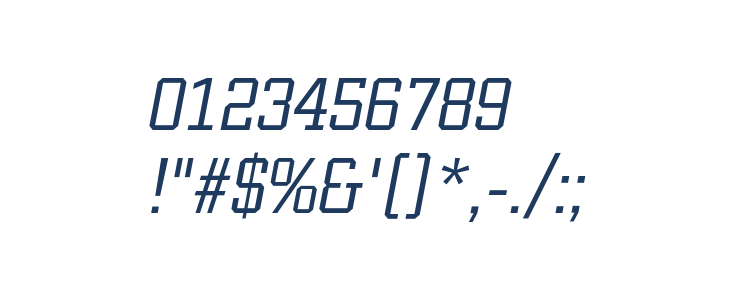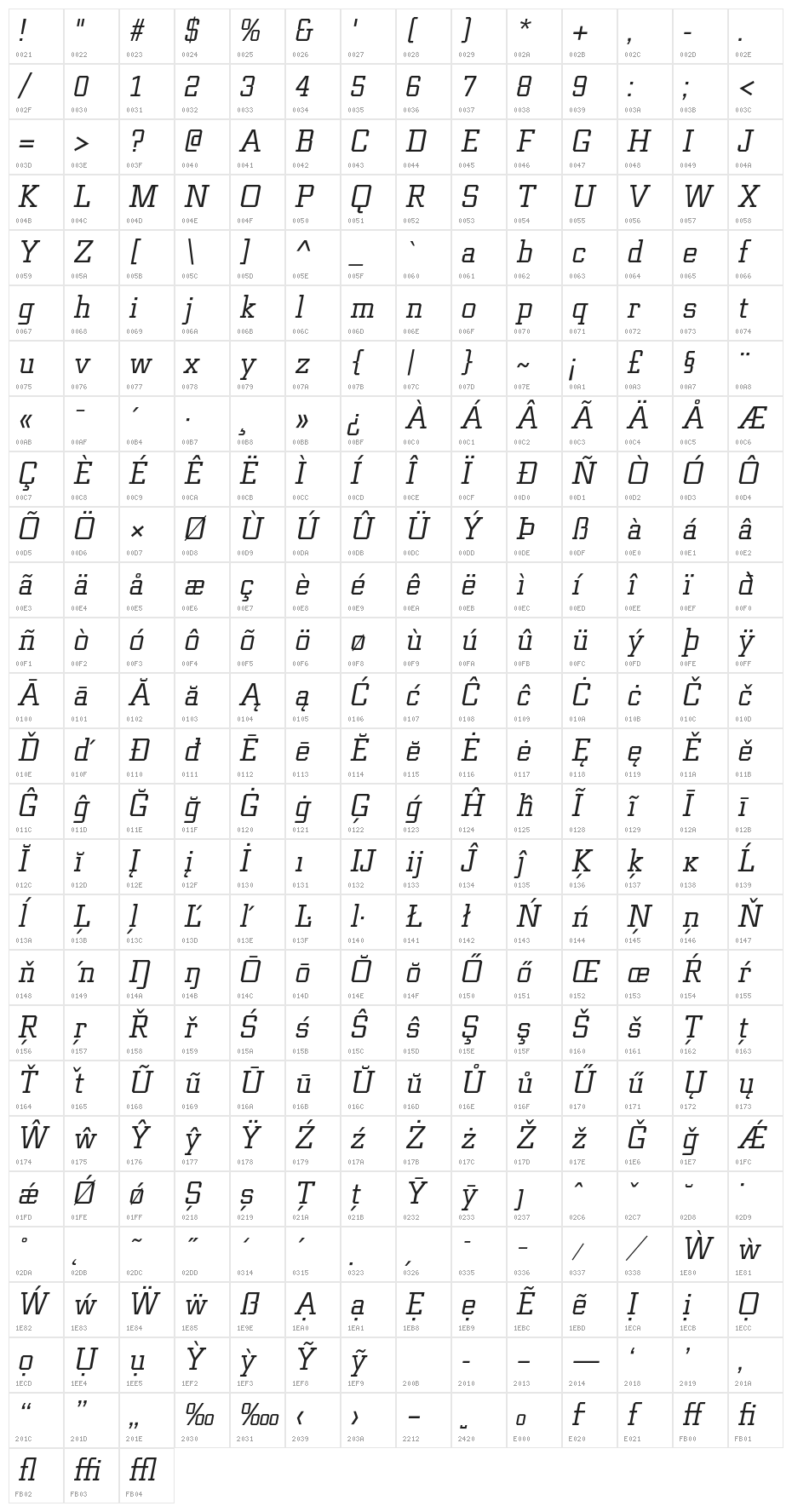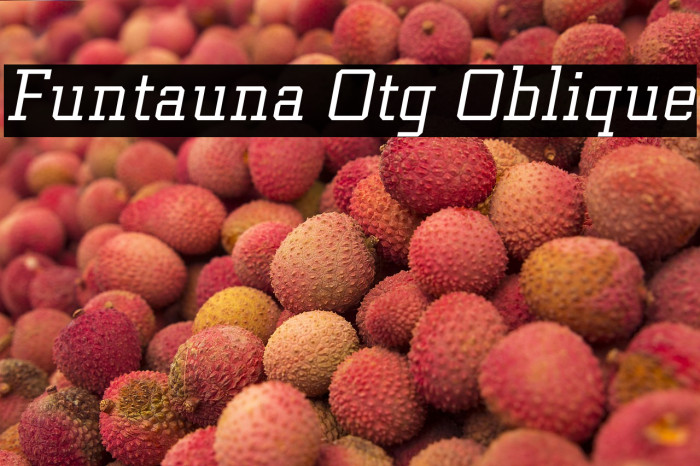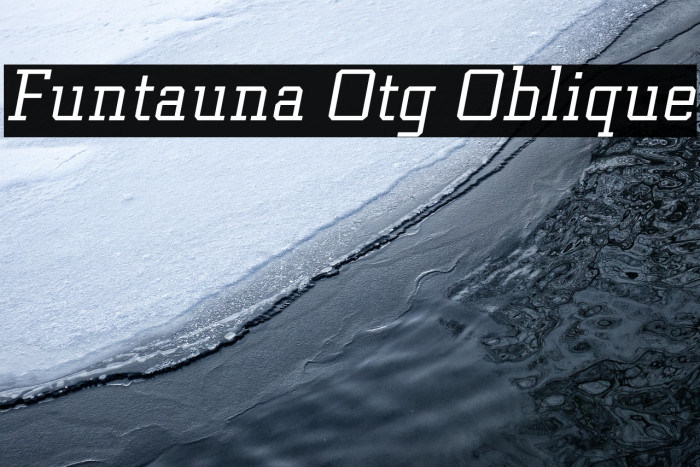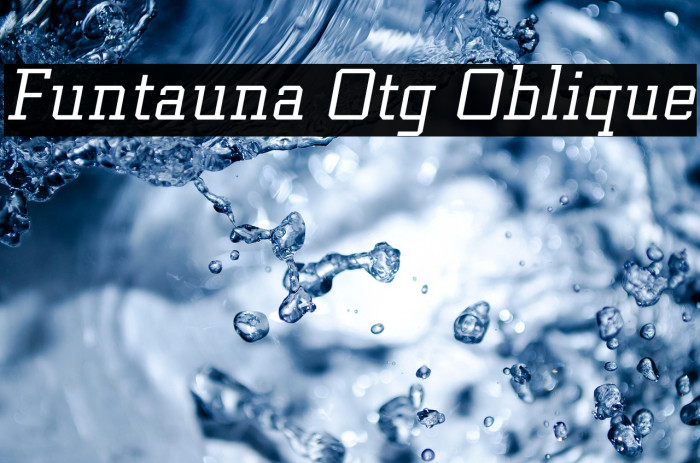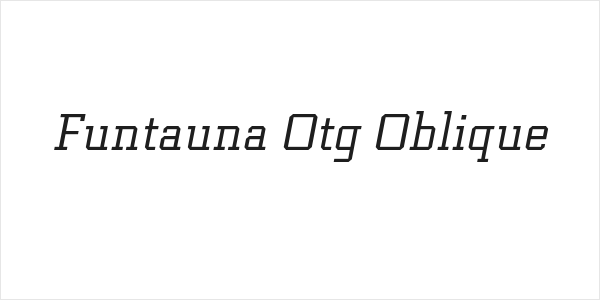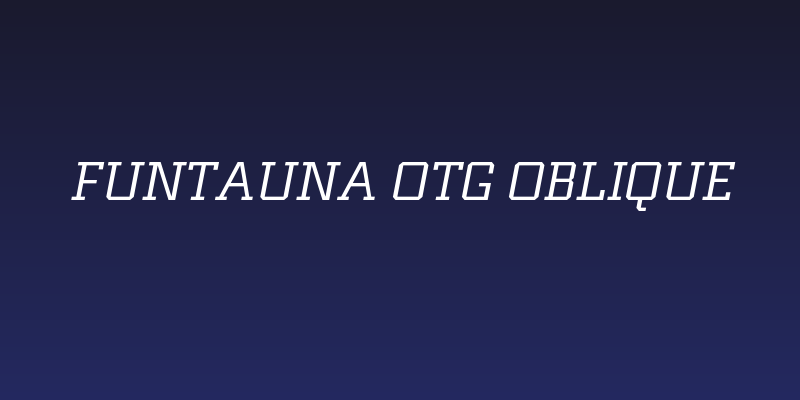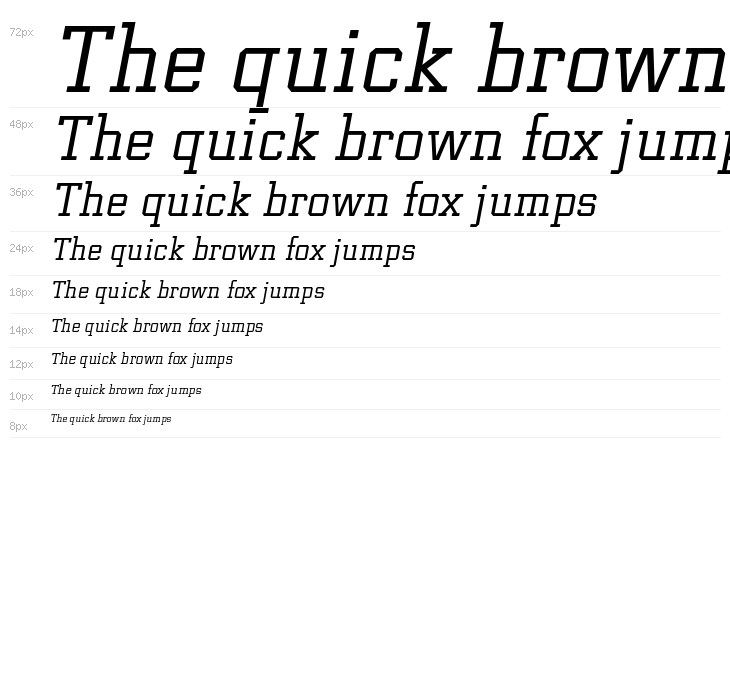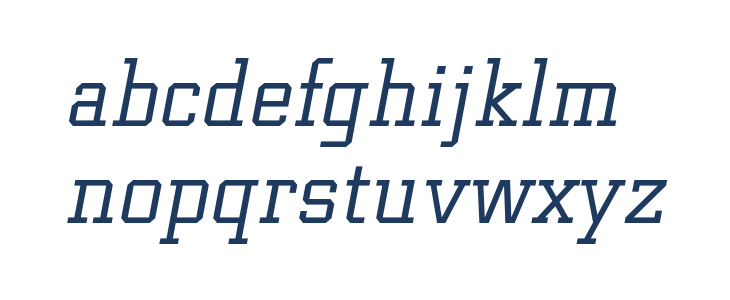
Funtauna Otg Oblique Font
Funtauna Otg Oblique Description
This font features a modern, oblique style with a distinct slant that gives it a dynamic and forward-moving appearance. The characters are well-defined with a geometric structure, offering a clean and professional look. The uppercase and lowercase letters maintain a consistent style, with slightly condensed proportions that enhance readability. The numerals are clear and balanced, matching the overall aesthetic of the font. Special characters are included, providing versatility for various design needs. The font's oblique nature adds a sense of motion and energy, making it suitable for contemporary design projects.
Use CaseHeadlines, Logos, Branding
Proposed ProjectsIdeal for branding, advertising, and editorial design where a modern and energetic feel is desired.